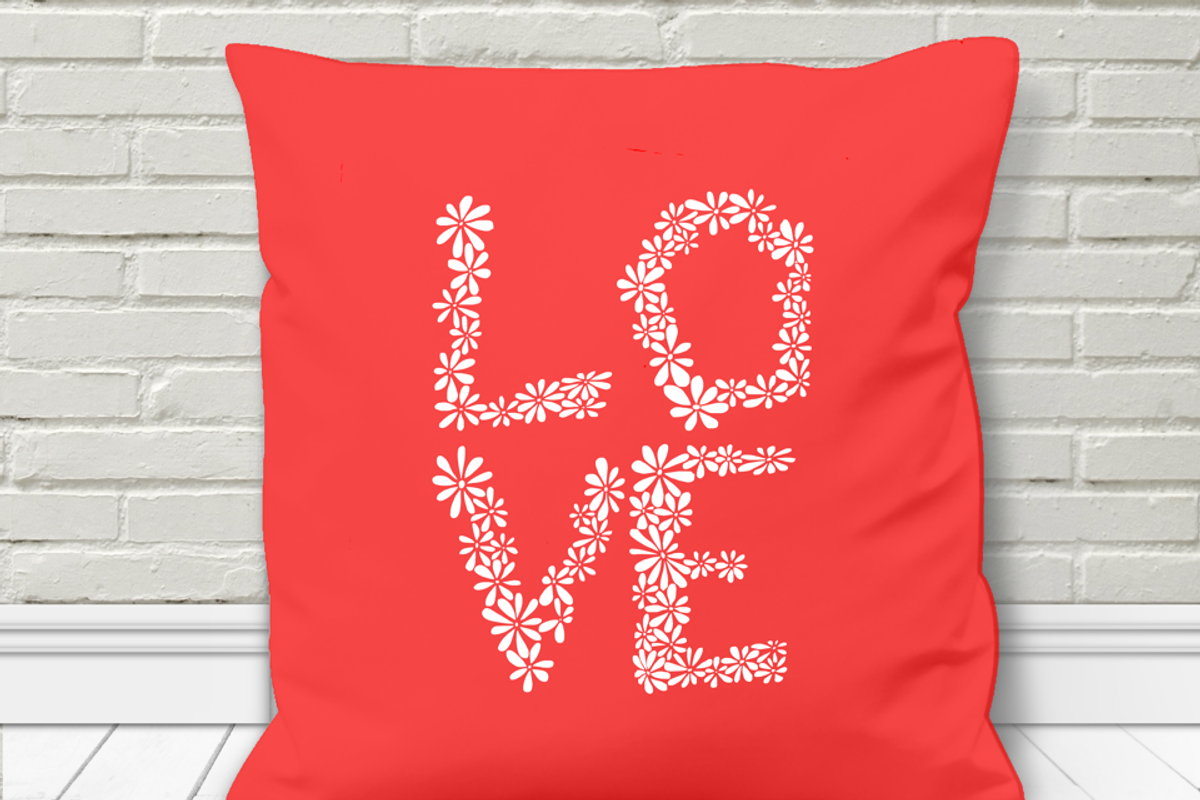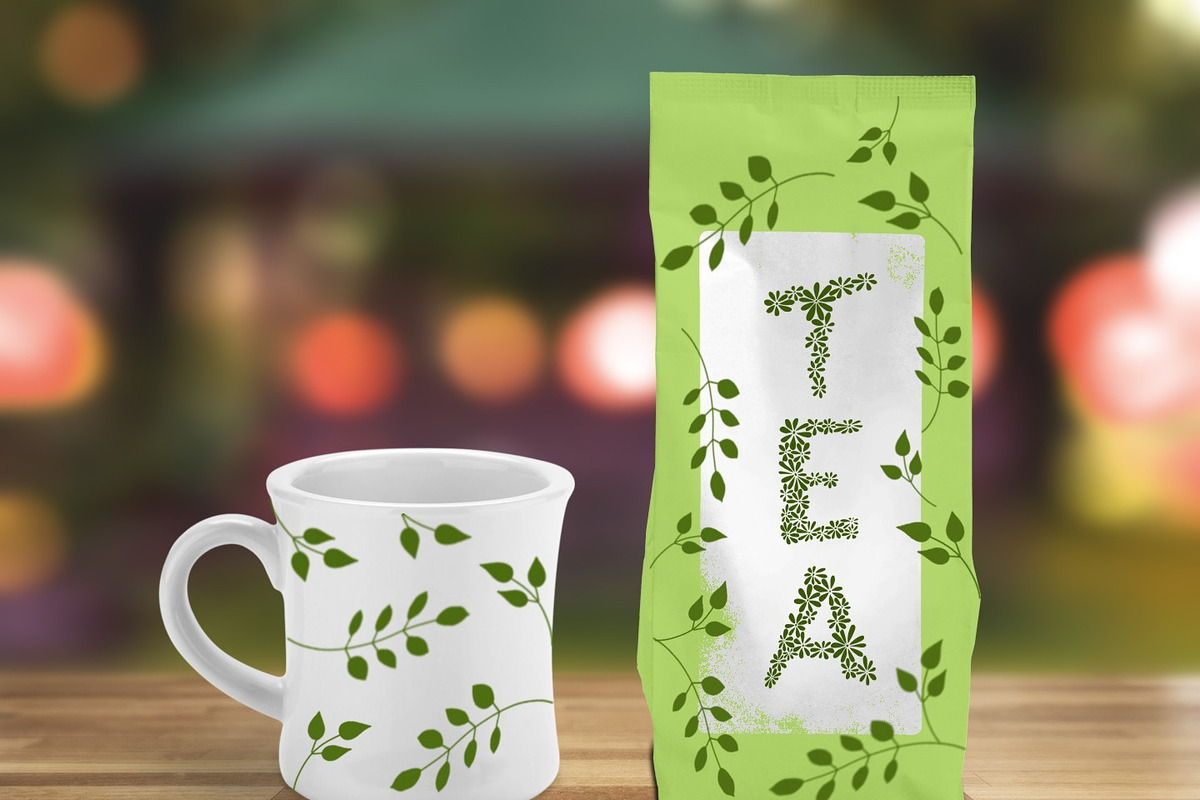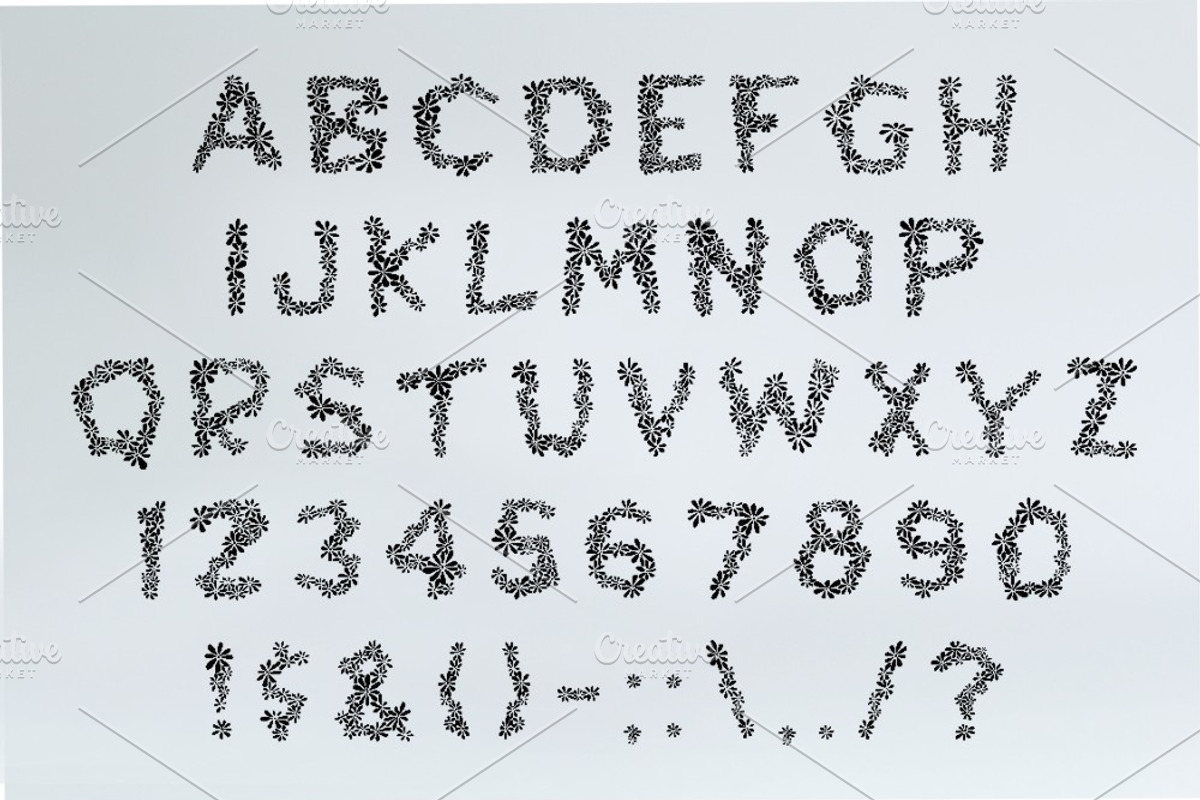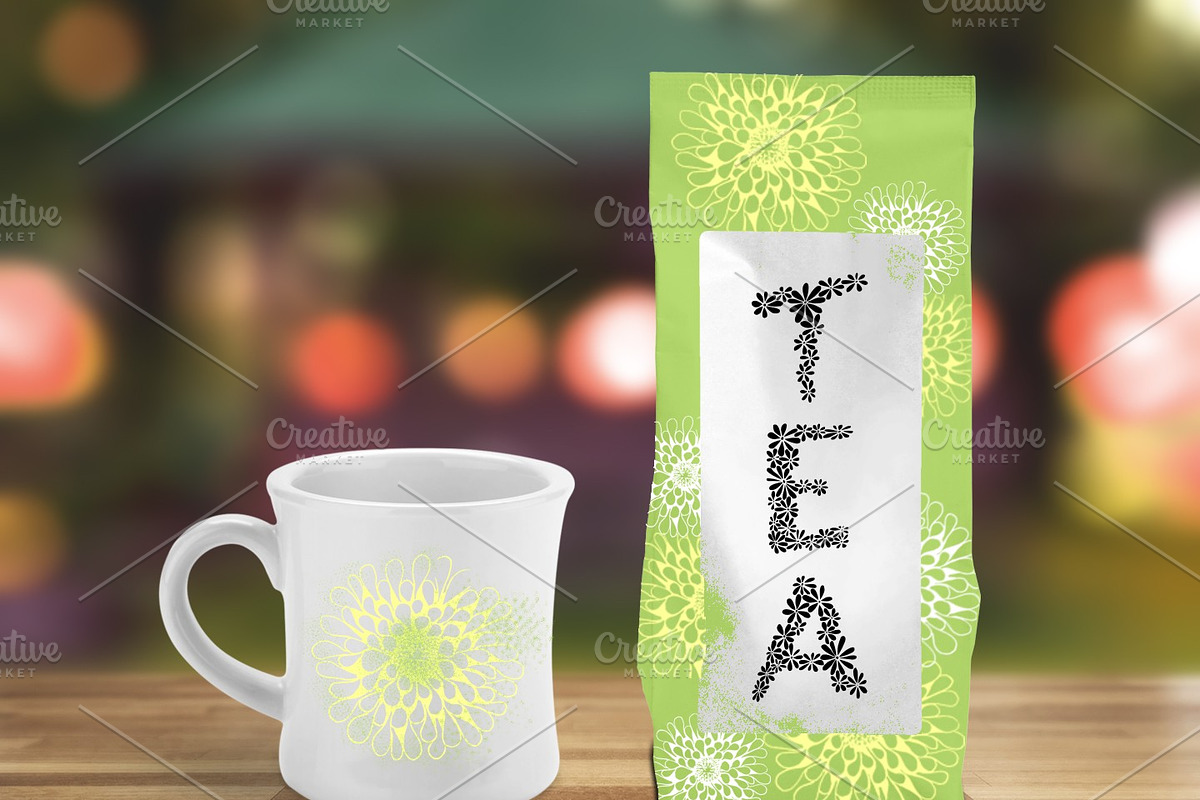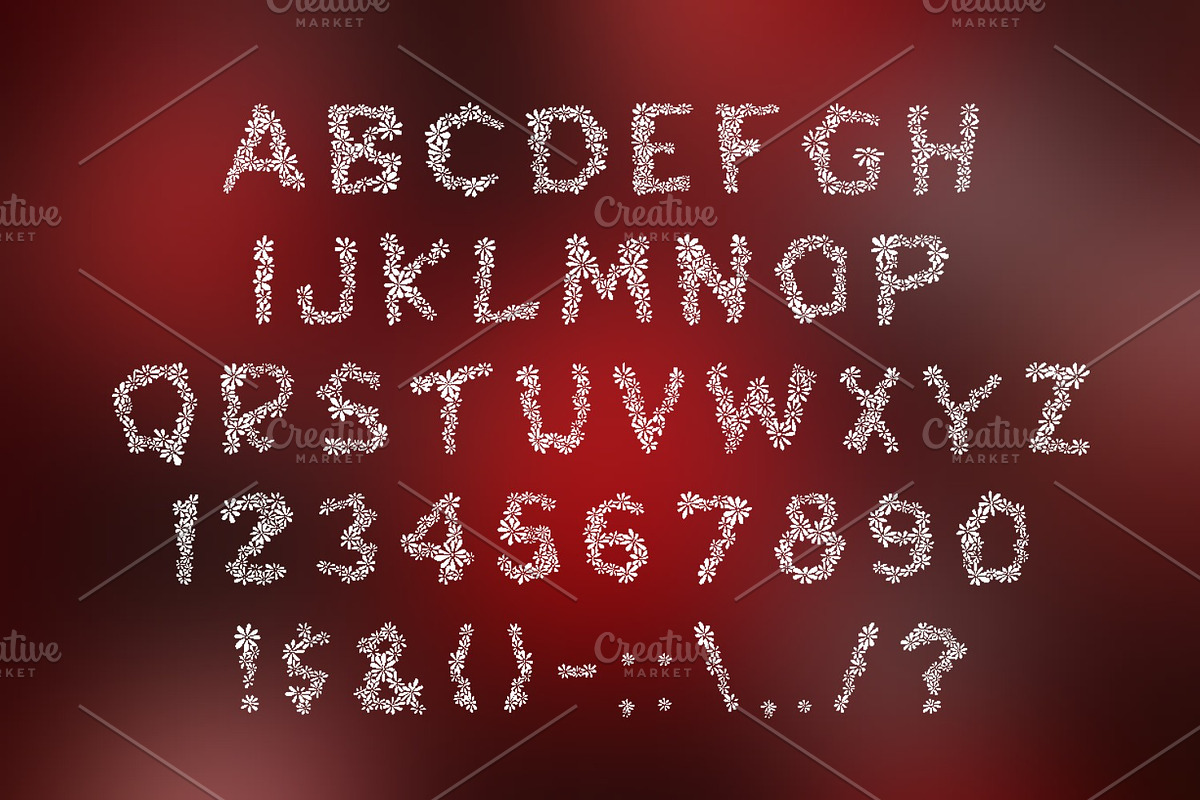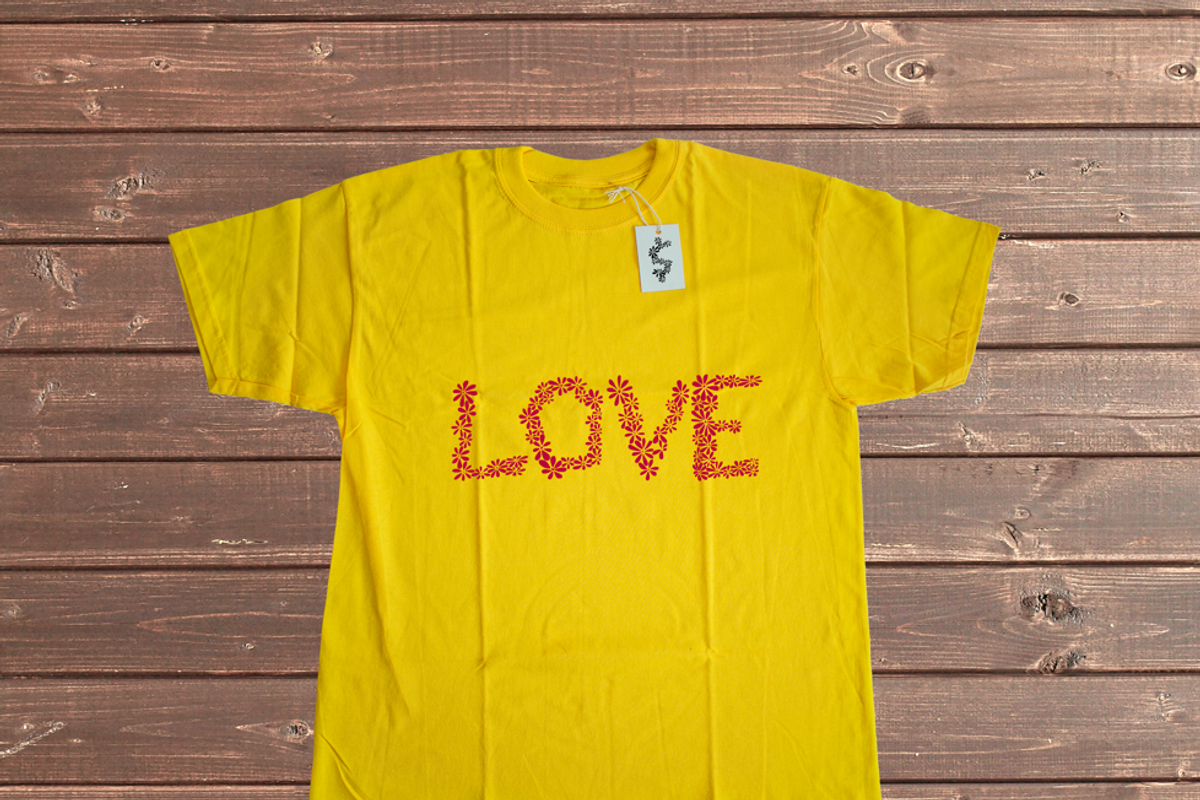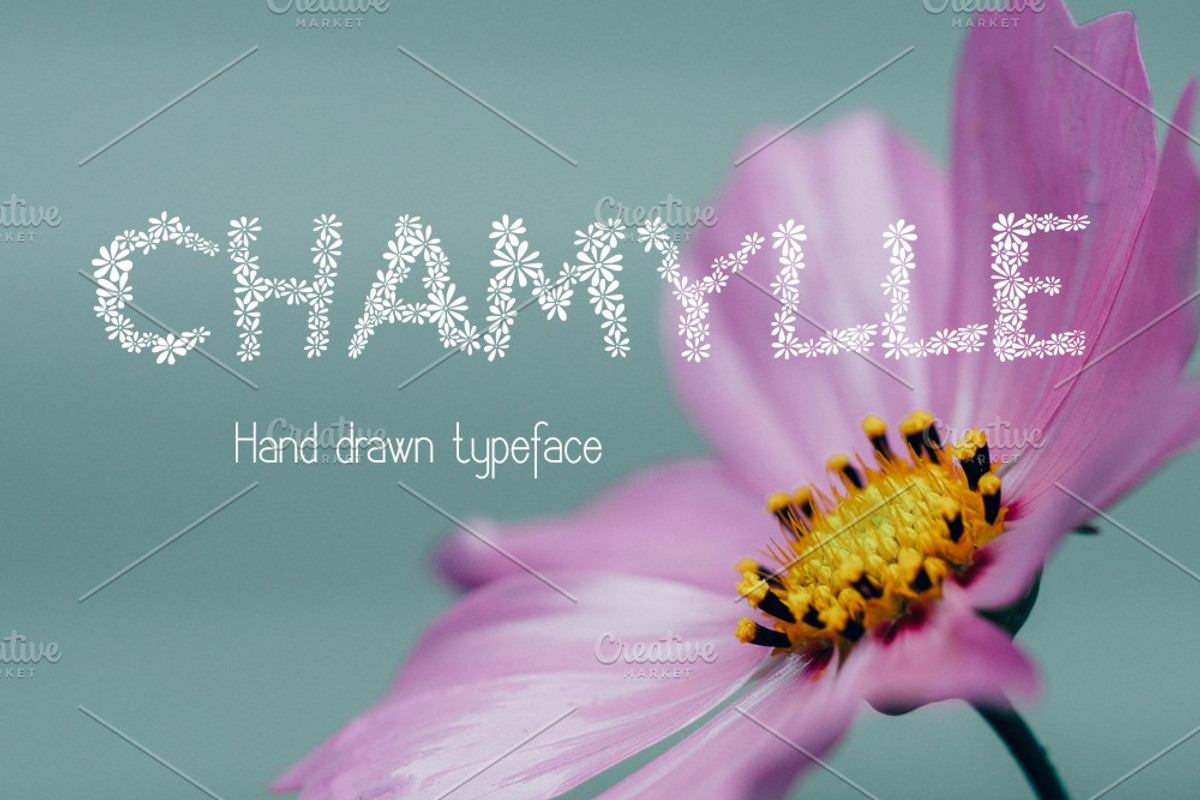
Chamylle Decorative Font
Chamylle Decorative Font by Digital Typeface Studio is a font selected for branding, posters, packaging, typography.
Chamylle Decorative Font by Digital Typeface Studio fits naturally into Branding, posters, packaging, typography.